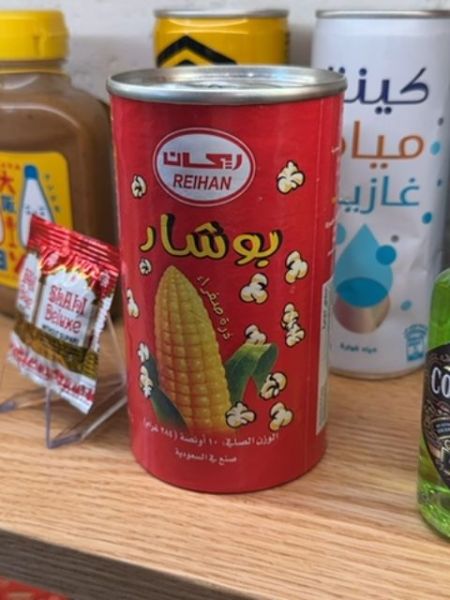
Reihan Popcorn
Canned popcorn ready for cooking or consumption.
Saudi Arabia
The typography on the can features bold Arabic script with distinctive curves, suggesting a playful and approachable aesthetic. The English text 'Reihan' utilizes a simple sans-serif font within an oval badge, giving it a clean and modern look that contrasts with the more elaborate Arabic script.
The packaging is a vibrant red can with a central image of a corn cob surrounded by popped corn graphics. The brand name 'Reihan' is prominently displayed at the top within an oval shape.
- The product is easily recognizable with its bold red color.
- It features visual elements that indicate the contents, like corn and popcorn illustrations.
- The product is labeled in both Arabic and English.